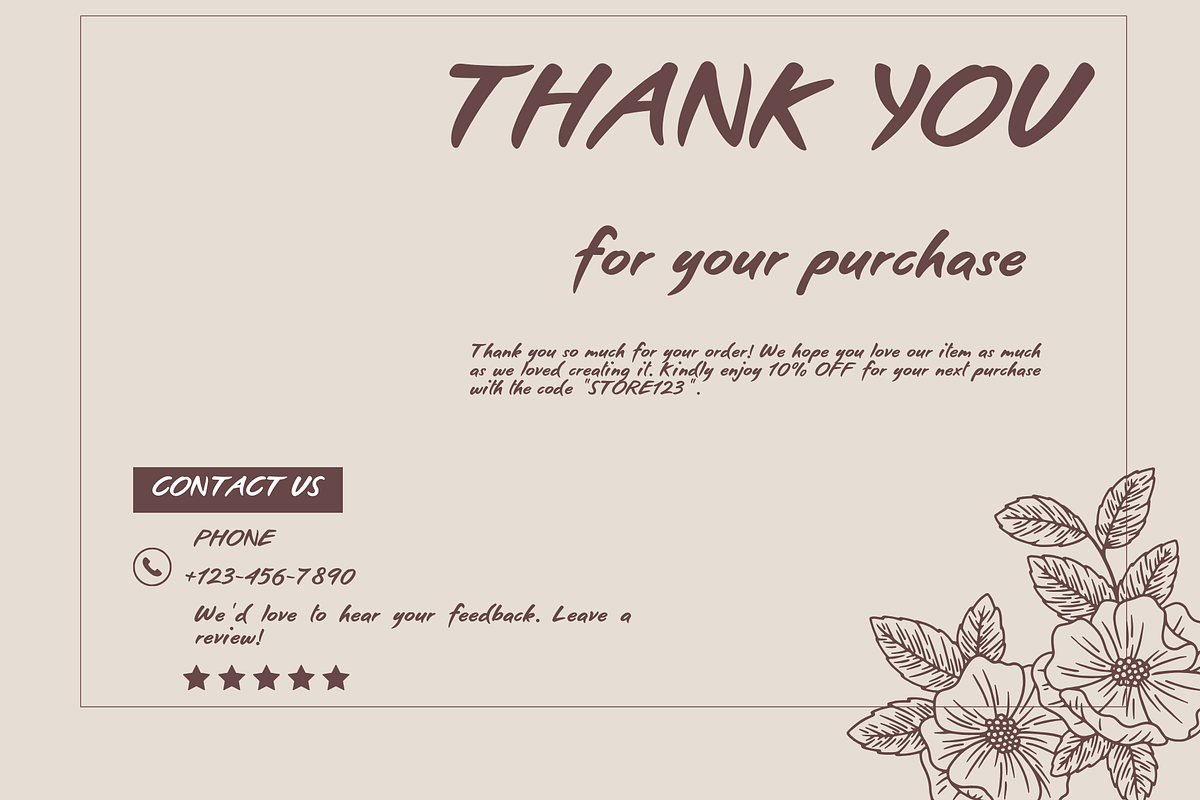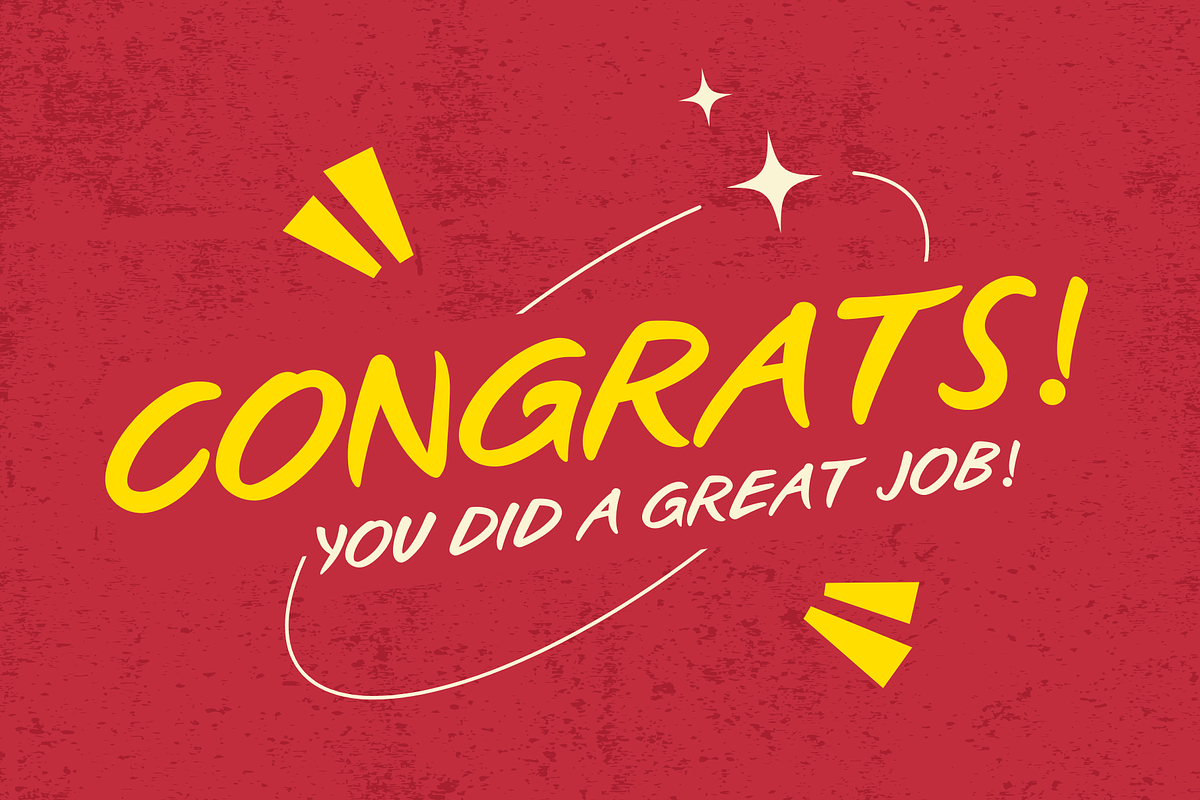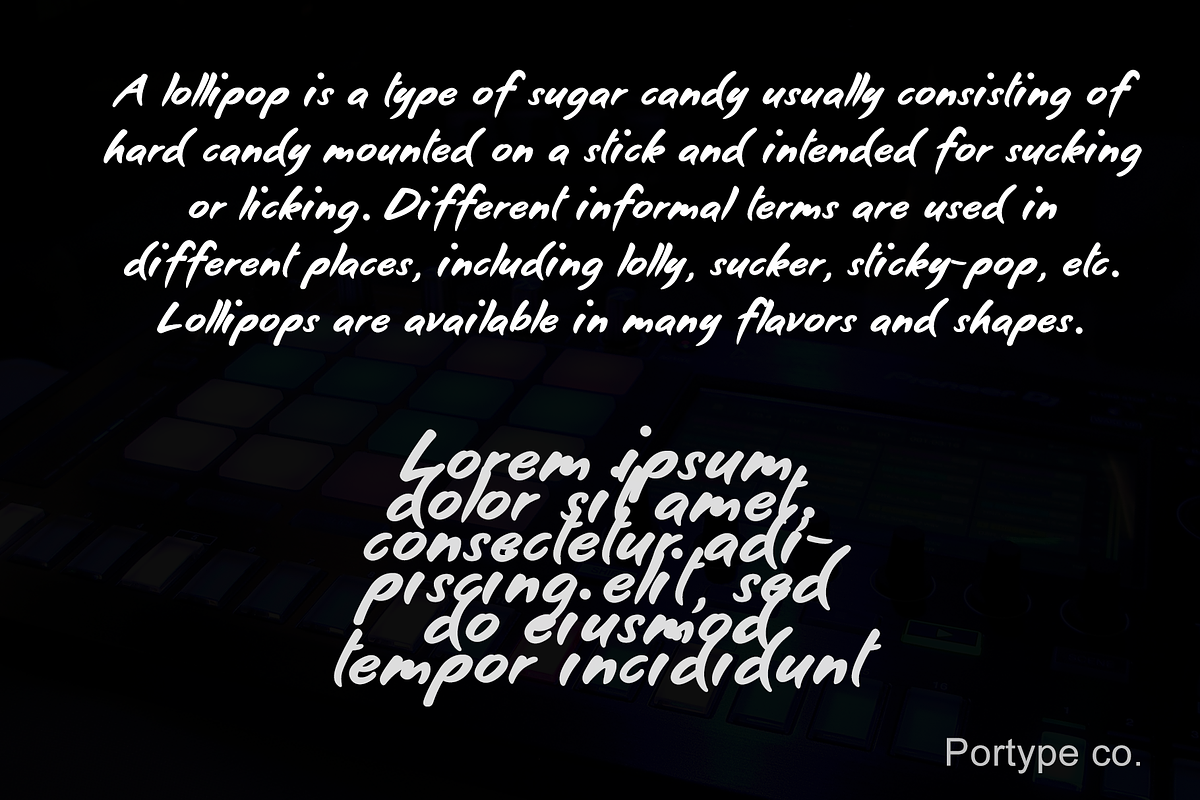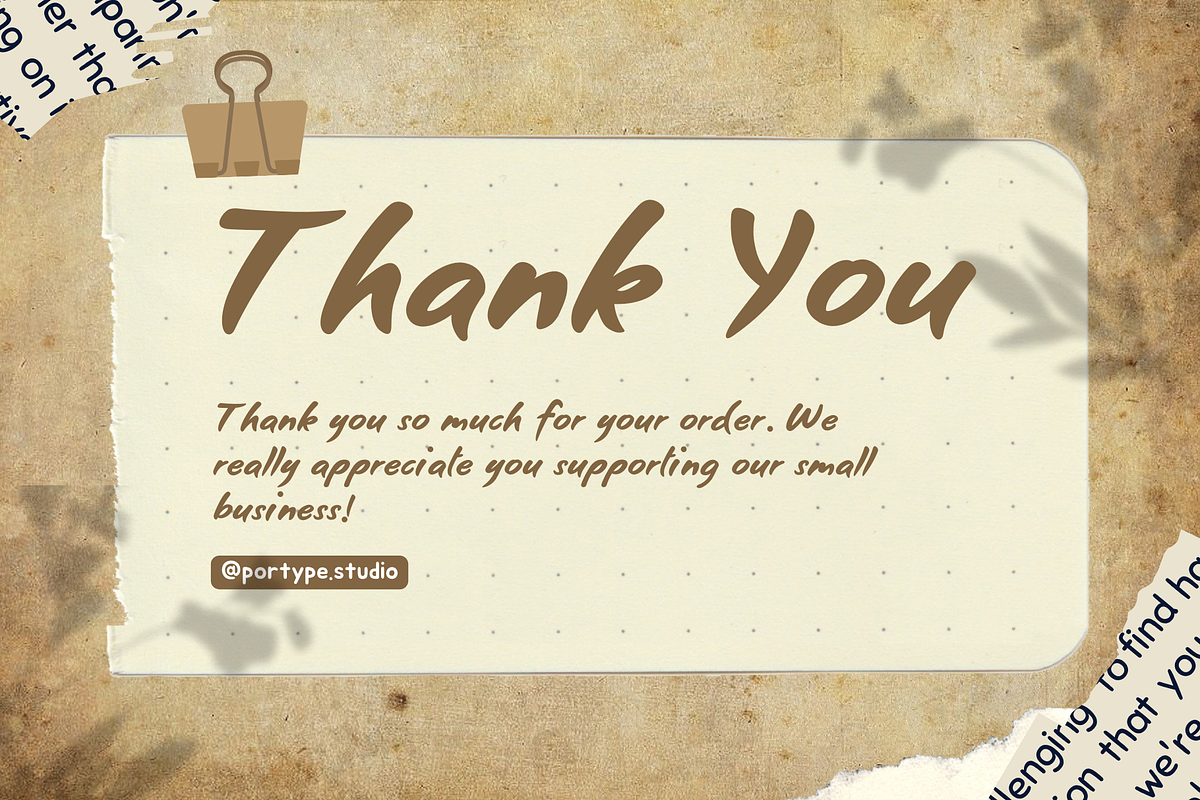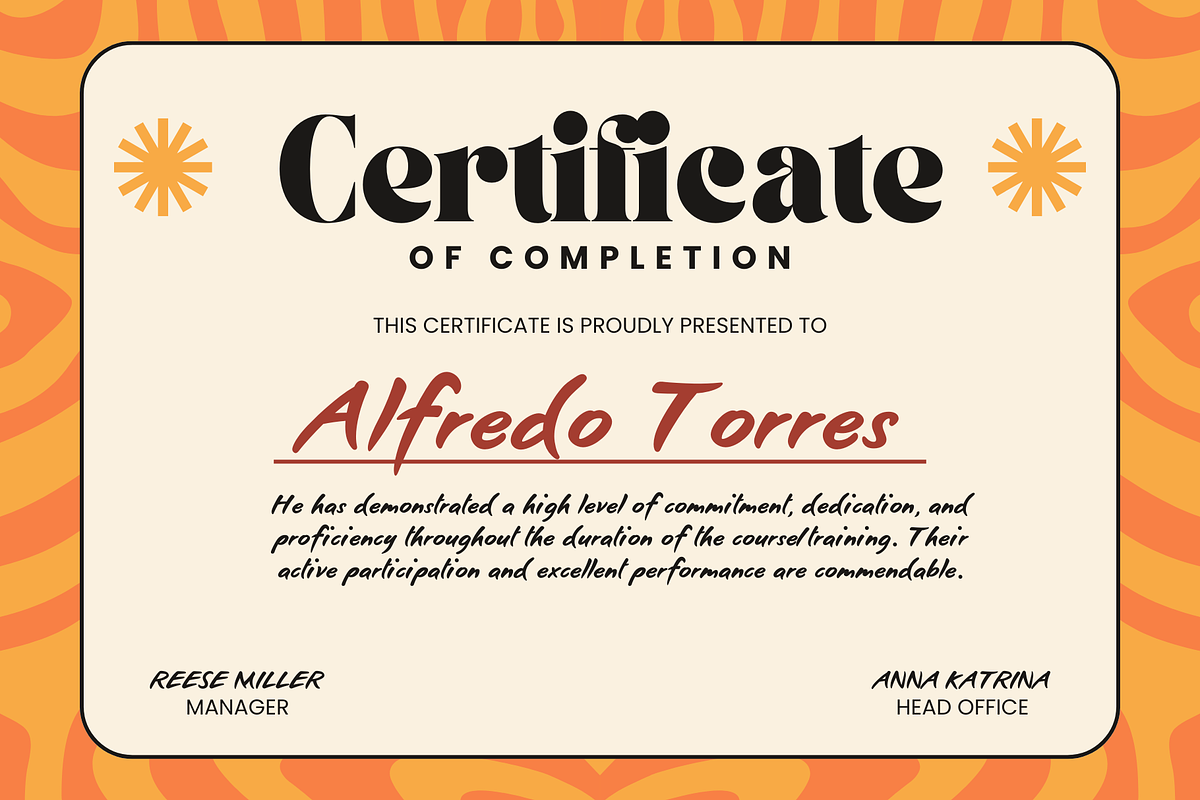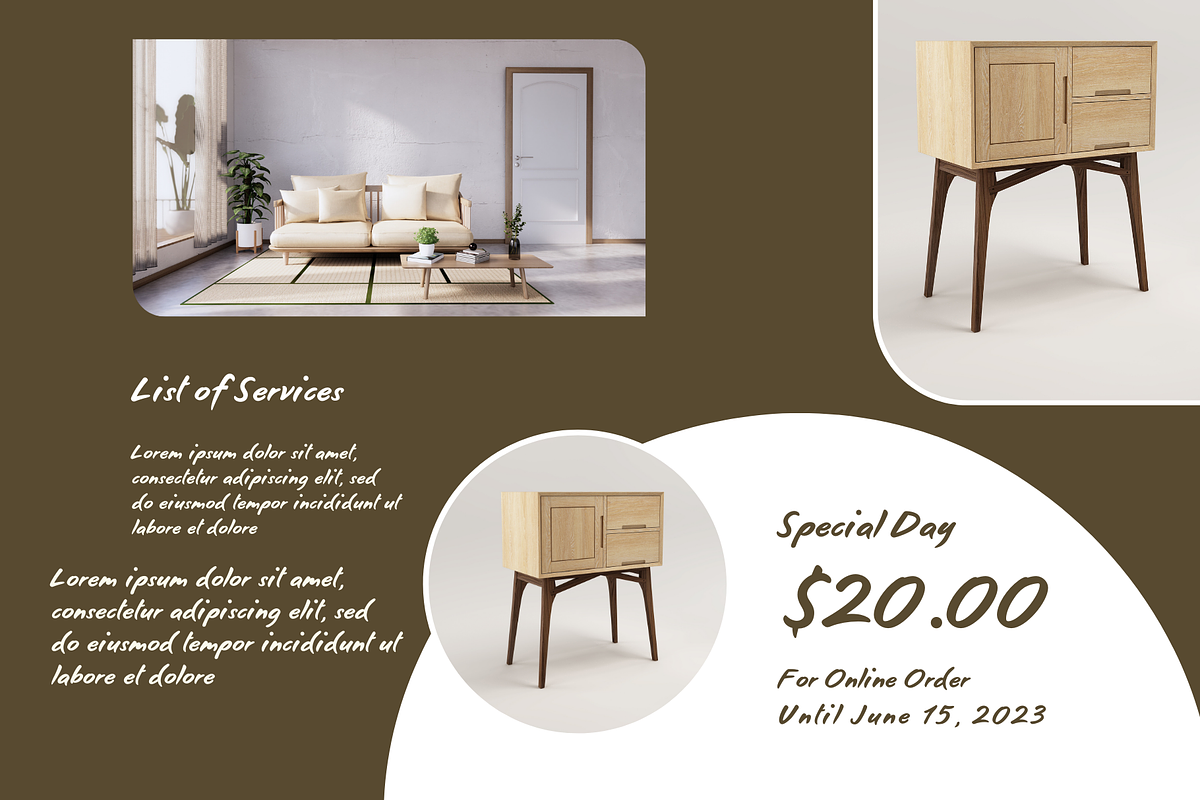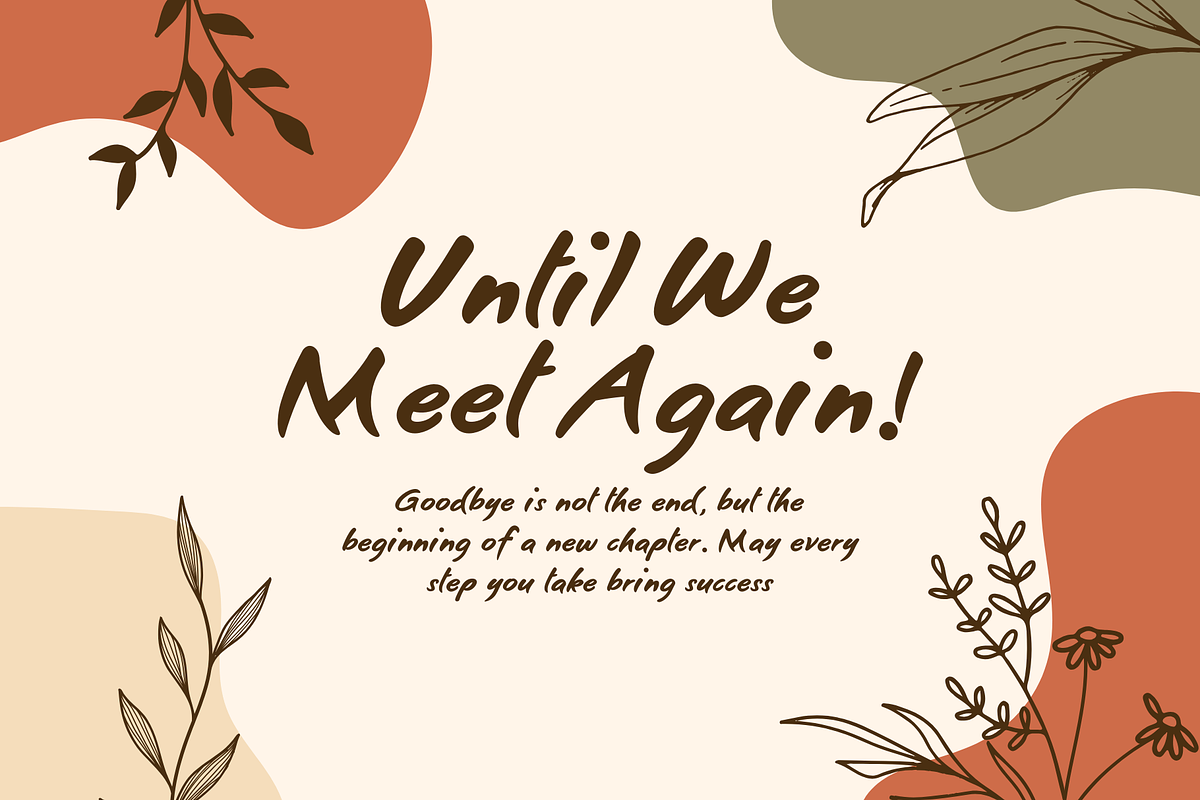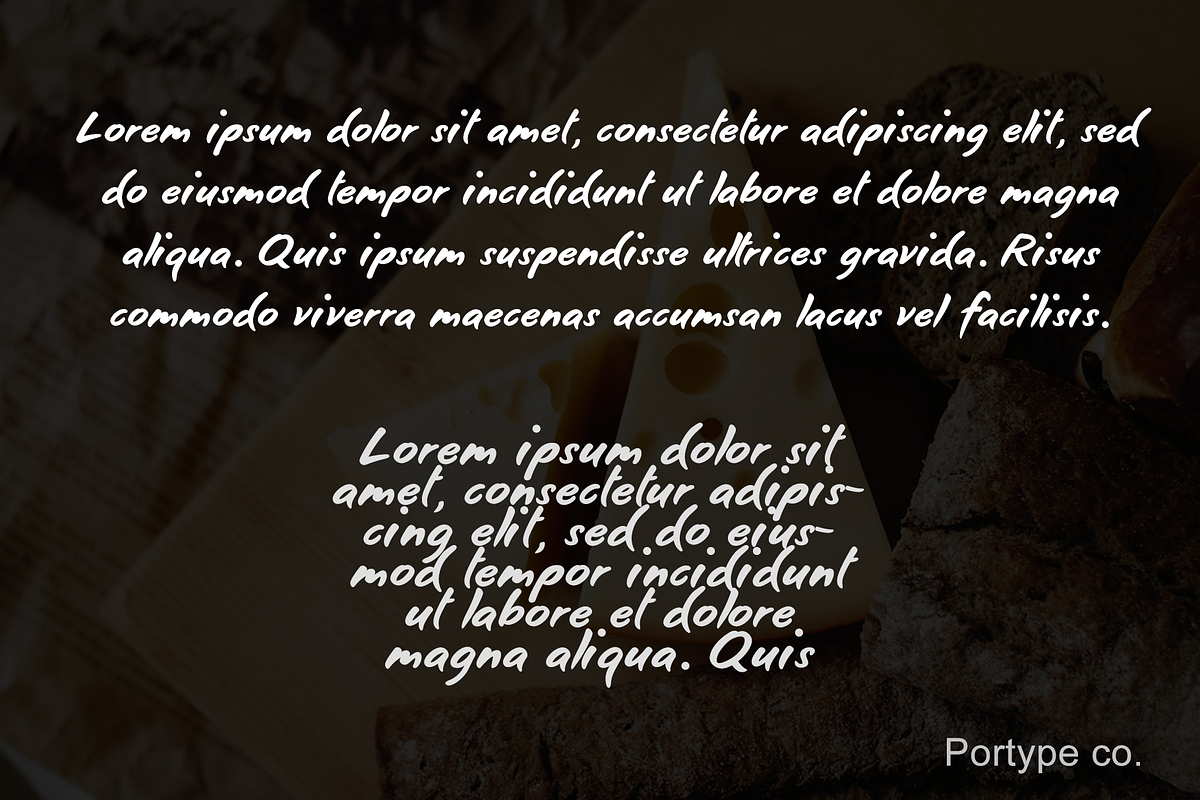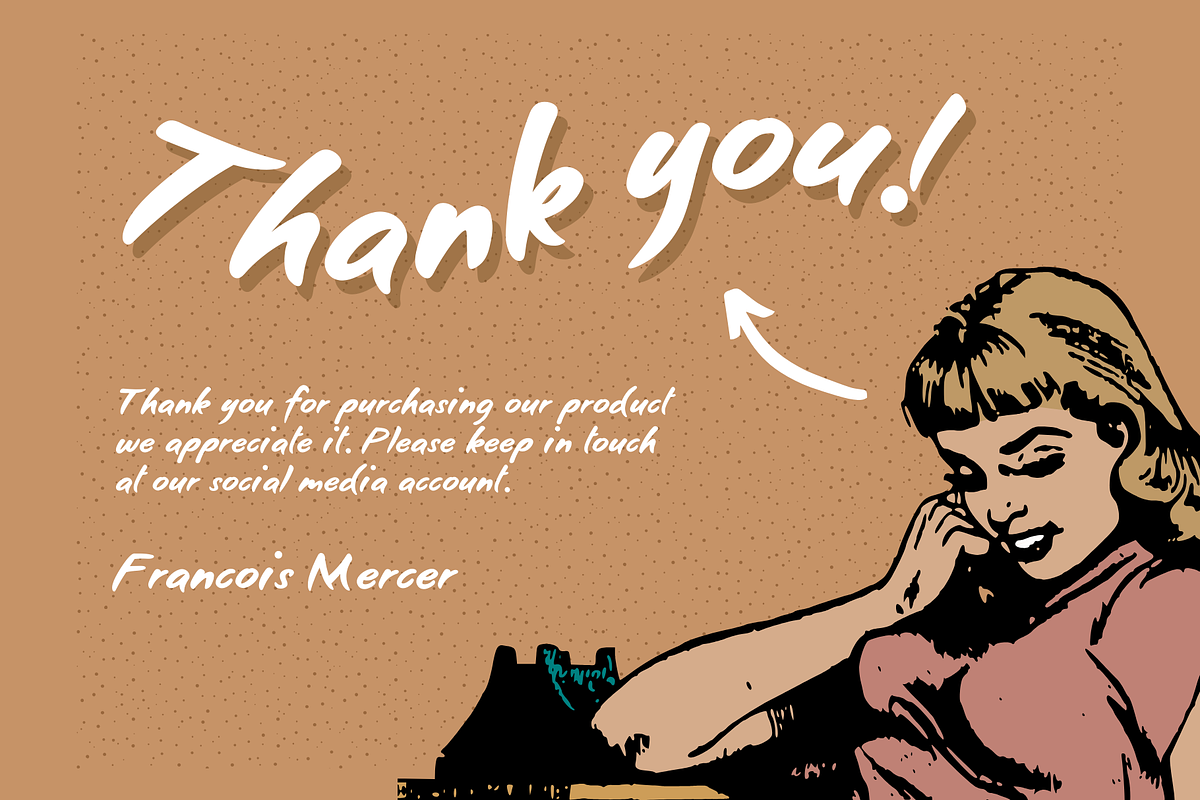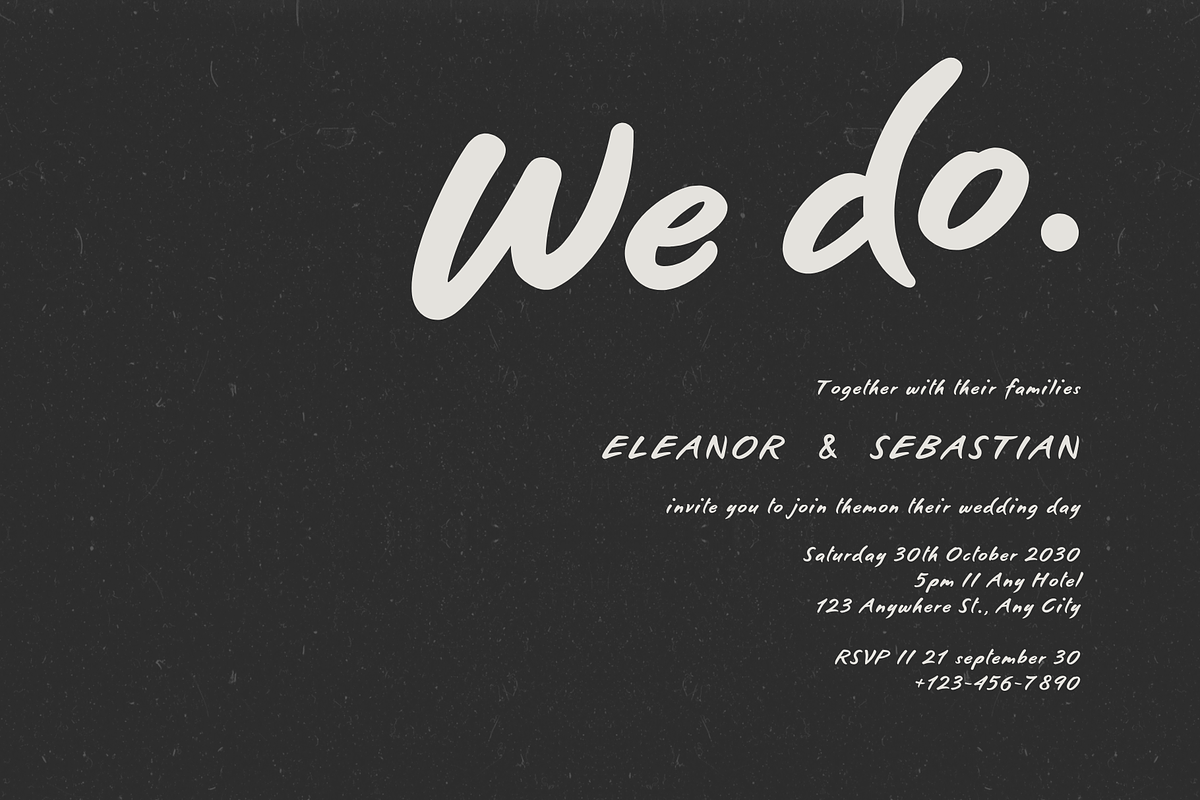
Cheeze Font-Authentic
Cheeze Font is an enchanting typeface that beautifully captures the essence of handwritten charm. Crafted with meticulous attention to detail, this delightful font combines the warmth and character of hand-drawn letterforms with a touch of whimsy.
Every curve and stroke in Cheeze Font exudes a sense of playfulness and elegance. Each letter is carefully crafted to showcase the fluidity and grace of handwriting, as if penned with a joyful spirit. The smooth, organic lines flow effortlessly, giving the font a natural and inviting feel.
With Cheeze Font, you'll find a delightful fusion of simplicity and sophistication. Whether you're designing greeting cards, invitations, logos, or any other project that needs a touch of personality, Cheeze Font is the perfect choice. The versatility of Cheeze Font makes it suitable for various contexts. It works wonders in both digital and print media, effortlessly adding a touch of authenticity and uniqueness. Its handwritten style brings a human element to your designs, evoking a sense of warmth and connection.